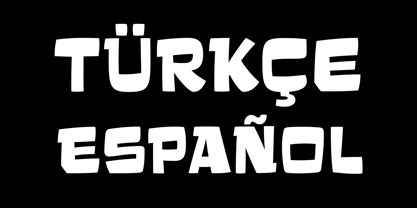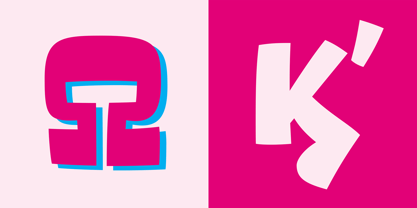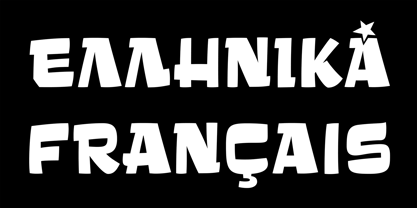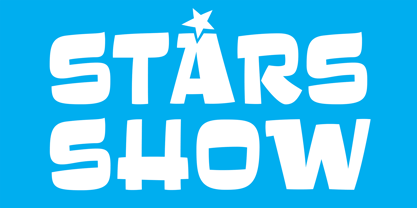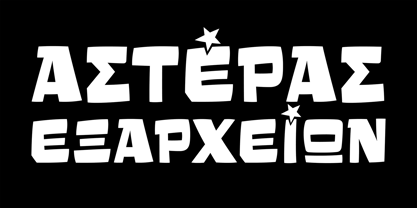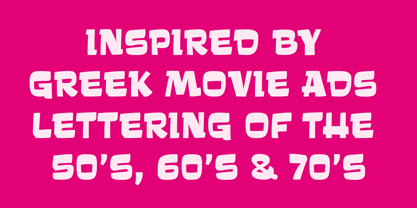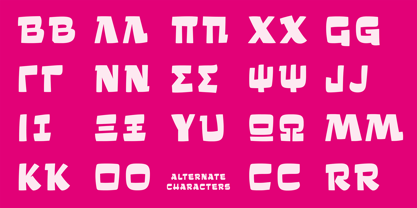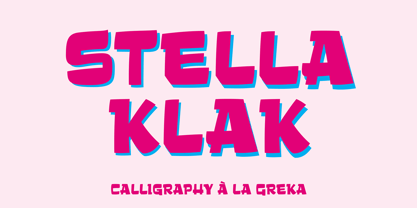
Stella Klak
The Stella Klak Font Family was designed by Panos Haratzopoulos, Yannis Karlopoulos and published by Fonts.GR. Stella Klak contains 1 styles. More about this family
Stella Klak, is an uppercase display font inspired by the lettering used for the advertisments of greek movies of the ’50s, ’60s and ’70s. The types are black, squarelike, with reversed thick-thin stress. Stella Klak has a complete alternative glyph set, with softer corners and some calligraphic features, for a more random handmade style.
Stella Decorex is part of Stella Project - Calligraphy à la greka, an attempt to study the forgotten art of greek calligraphy that flourished from the ’50s through the ’70s – an indirect conversation with the colleagues of the past. It’s a study on the tools and techniques of the time, a work of classification, documentation and adaptation of these special styles to modern media and communication tools.